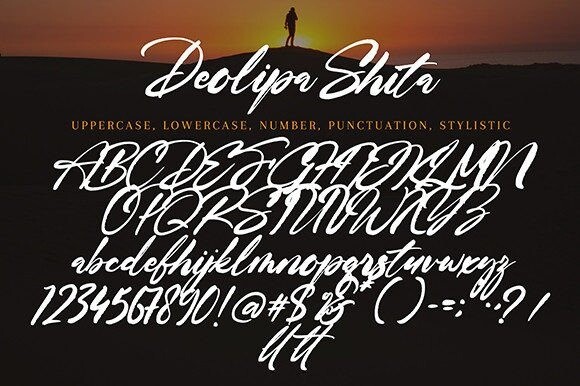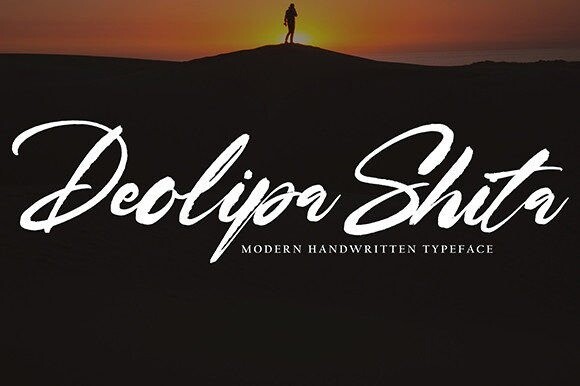
Deolipa Shita Font
Designer: Pineungtype & Missinklab
Deolipa Shita Font is a lovely and timeless handwritten font. It is the best choice for creating eye catching logos, branding and quotes. Every letter has a unique and beautiful touch, which will make your design come alive!